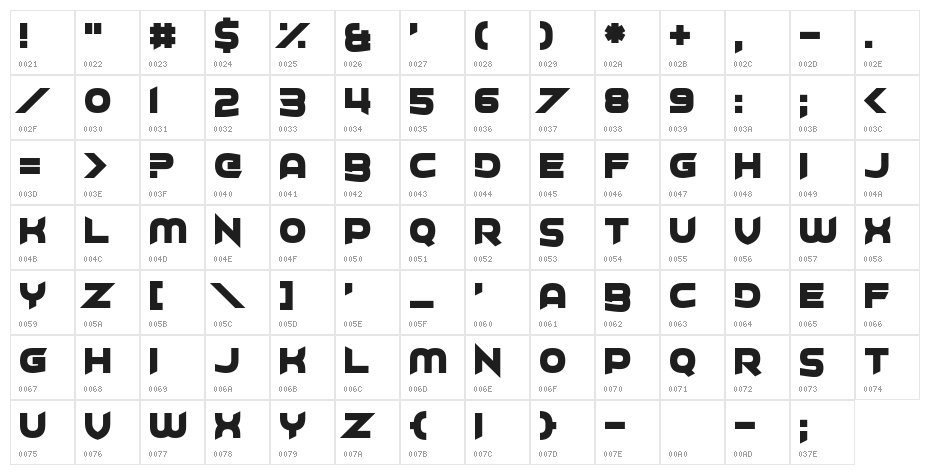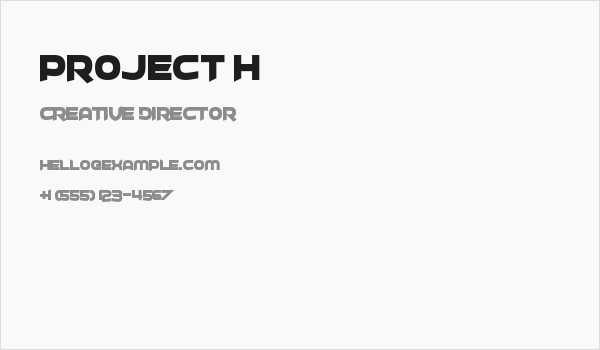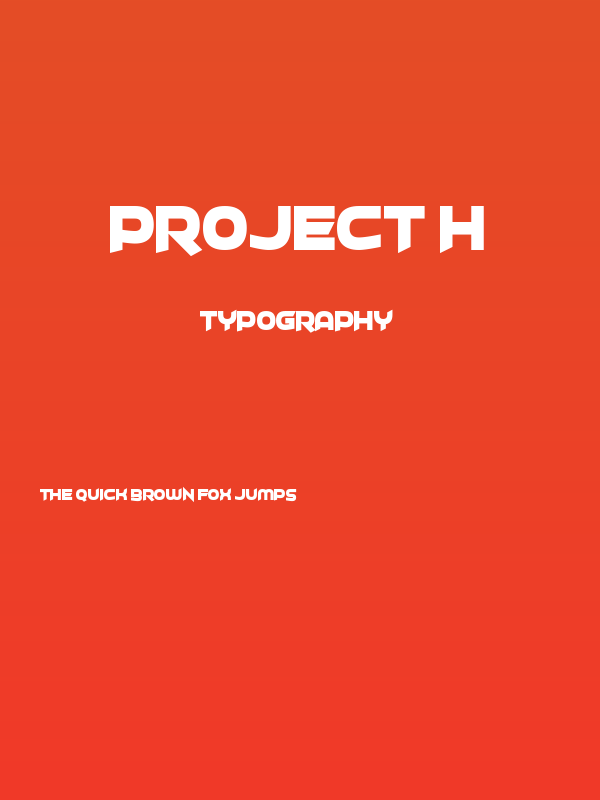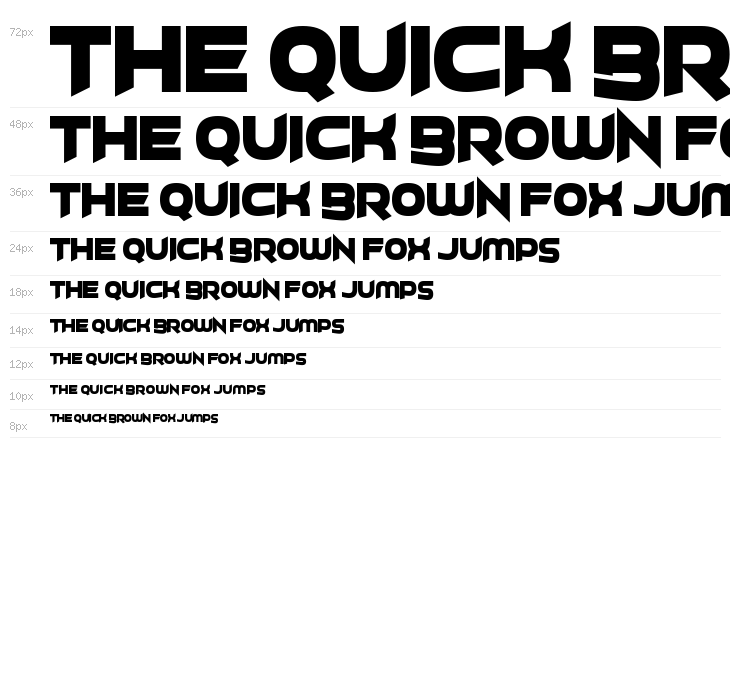
Project H Font
Project H Description
This font features a bold and futuristic design with geometric shapes and sharp angles. The characters are constructed with thick strokes, giving them a strong and impactful presence. The uppercase letters have a uniform height and width, creating a cohesive and structured appearance. The numerals and special characters maintain the same boldness and geometric style, ensuring consistency across all elements. This font's unique style makes it stand out, making it suitable for projects that require a modern and edgy look.
| Overall Style | Futuristic, Modern |
| Use Case | Logos, Headlines, Posters |
| Proposed Projects | Ideal for branding, posters, video game graphics, and sci-fi themed projects. |